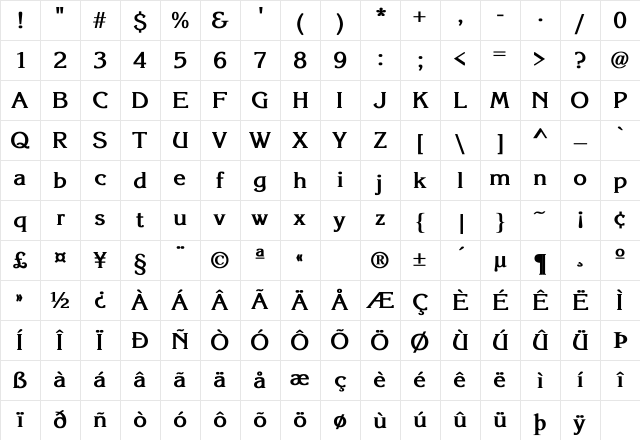
Corinna Bold
Design Context for Corinna
Corinna is a composed and adaptable typeface that performs quietly and consistently across a wide range of design contexts. Its bold stroke weight gives it real presence on the page.
Pro Tip: Use Corinna in both headline and body roles to test its range before committing to a single application.